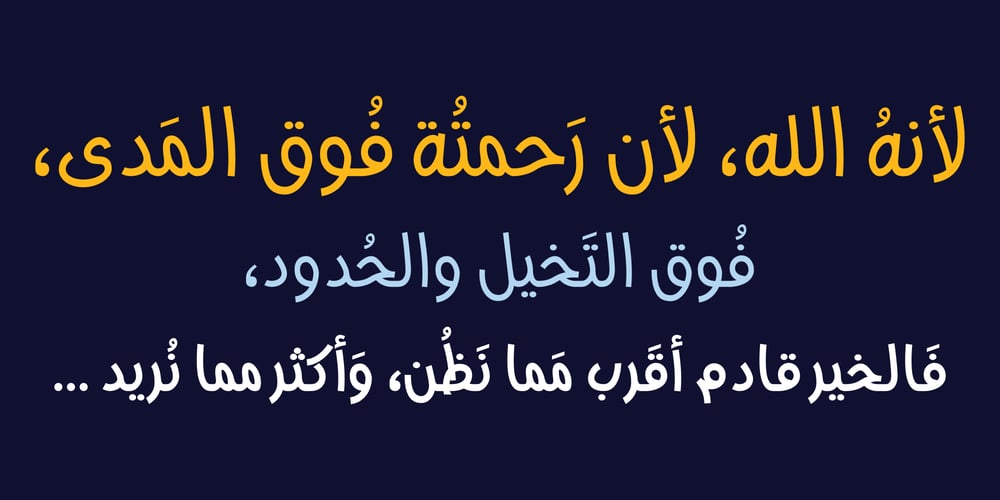
HS Rahaf Font Family was designed by Hasan Abu Afash and published by Hiba Studio. HS Rahaf contains 2 styles and family package options. Rahaf is my little daughter’s name; the word ‘Rahaf’ means kindness, sensitive and loving in Arabic. Thus, HS Rahaf is an Arabic display and text typeface. It is useful for headlines, books cover and other graphic projects. It gives the feeling and impression of hand-lettering. So it can be used for text when hand writing is needed, like in caricature texts and children stories and books. HS Rahaf is characterized by simplicity, clarity of reading and beautiful flaunt. It contains many ligatures which increase and modify its beauty. The font supports Arabic, Persian, Urdu, Kurdish and Pashto languages.